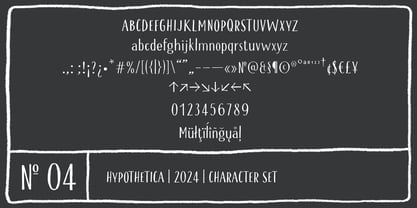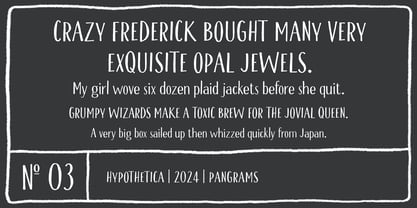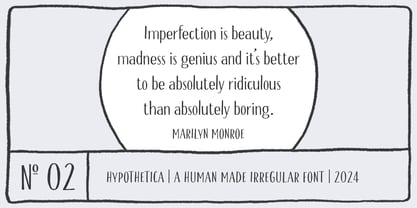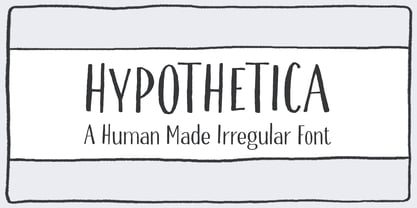
Hypothetica
by Ayca Atalay
The Hypothetica Font Family was designed by Ayça Atalay and published by Ayca Atalay. Hypothetica contains 1 styles. More about this family
Hypothetica | A Human Made Irregular Font
Hypothetica is a hand lettered, rough-edged typeface with a bouncy baseline. It has condensed letterforms with uneven stem thickness. All of its 'irregularities' give Hypothetica a unique and undeniably charming character.
FEATURES
- Uppercase and lowercase letters
- Numerals
- Punctuation Marks
- Arrows
- Multilingual
Ayça Atalay is an independent typeface designer based in Istanbul, Turkey. She released her first typeface Newcraft Serif in 2016. Dedicated to coming up with unique letterforms and impactful typefaces while simultaneously providing a wide range of Opentype features, Ayça Atalay creates all kinds of typefaces, from multi-weight families to hand drawn quirky serifs.